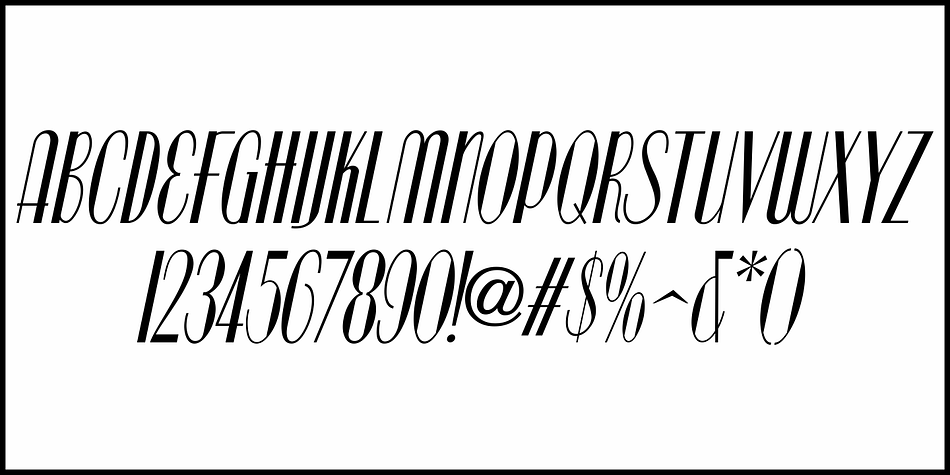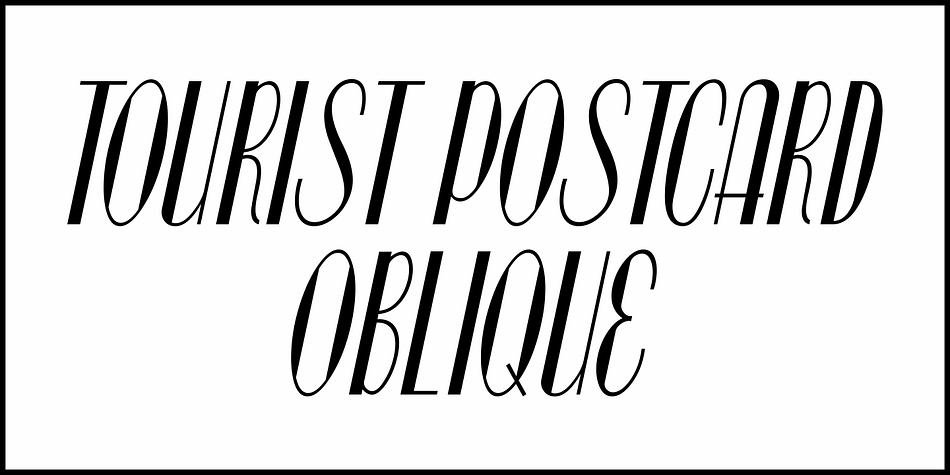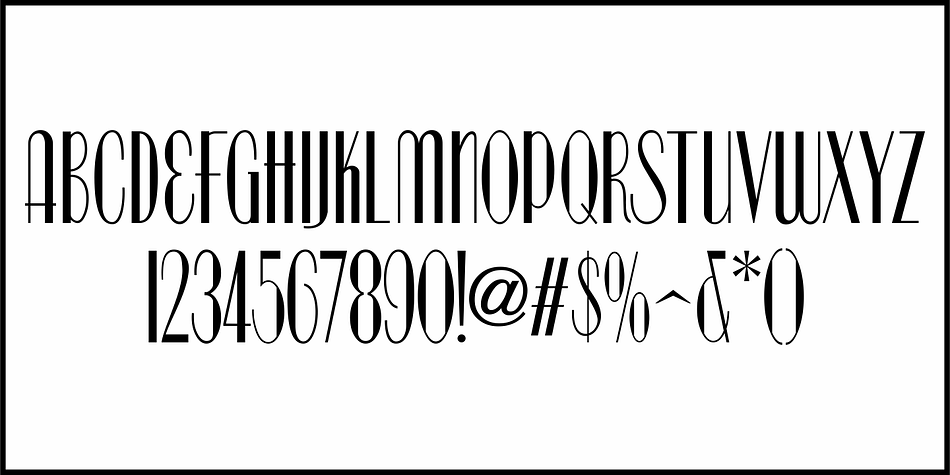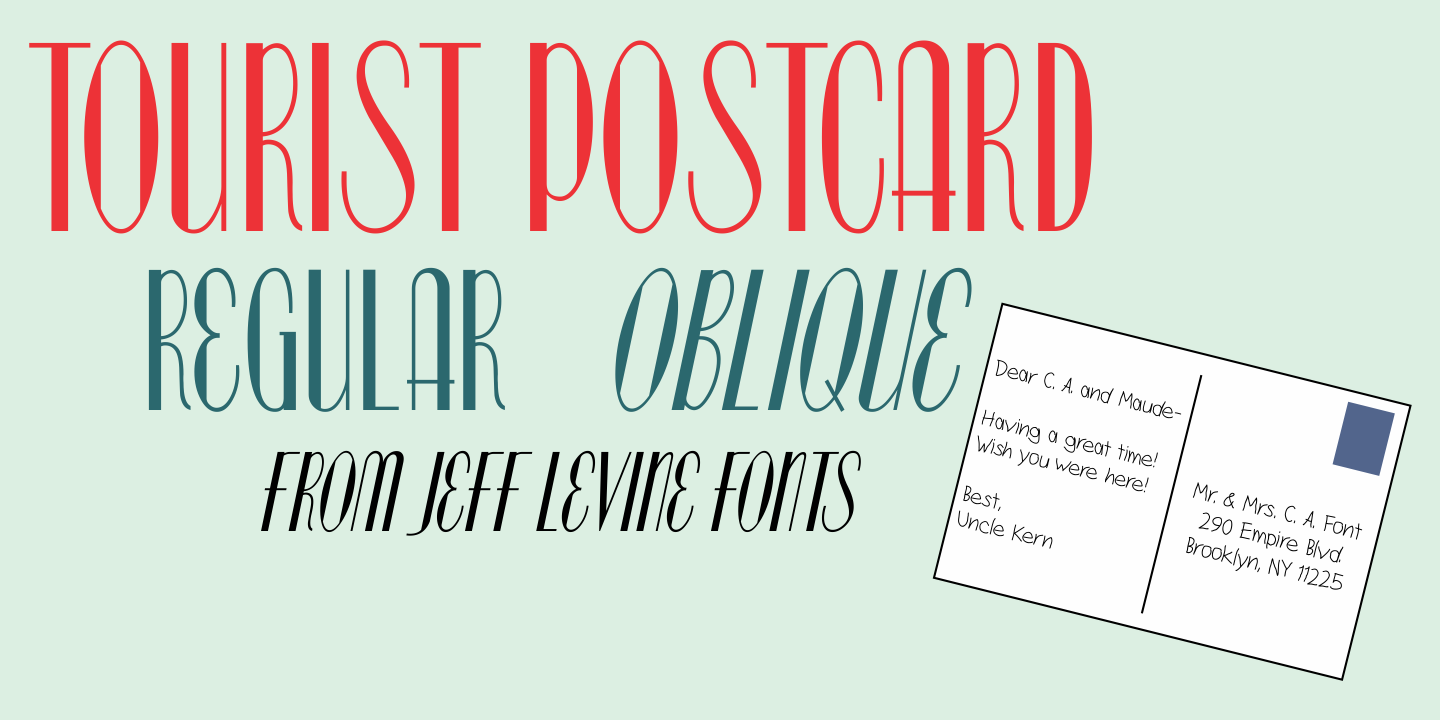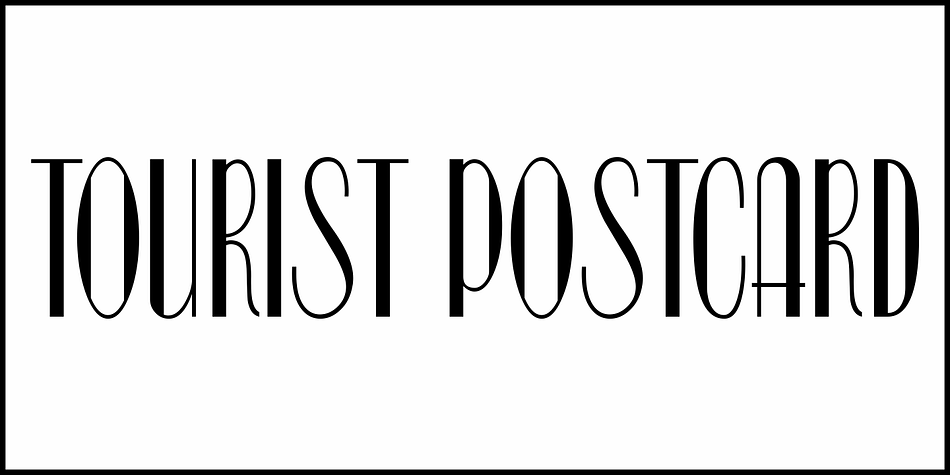
TOURIST POSTCARD JNL
Designed by Jeff Levine, Tourist Postcard JNL is an art deco font family. This typeface has two styles and was published by Jeff Levine Fonts.
Alf Becker graced many issues of “Signs of the Times” (a trade magazine for the sign industry) with his innovative hand lettered alphabets for others to use as design inspirations.
His 134th submission was titled “Post Card Type”, a condensed thick-and-thin stylized Art Deco design.
This served as the inspiration for Tourist Postcard JNL, which is available in both regular and oblique versions.